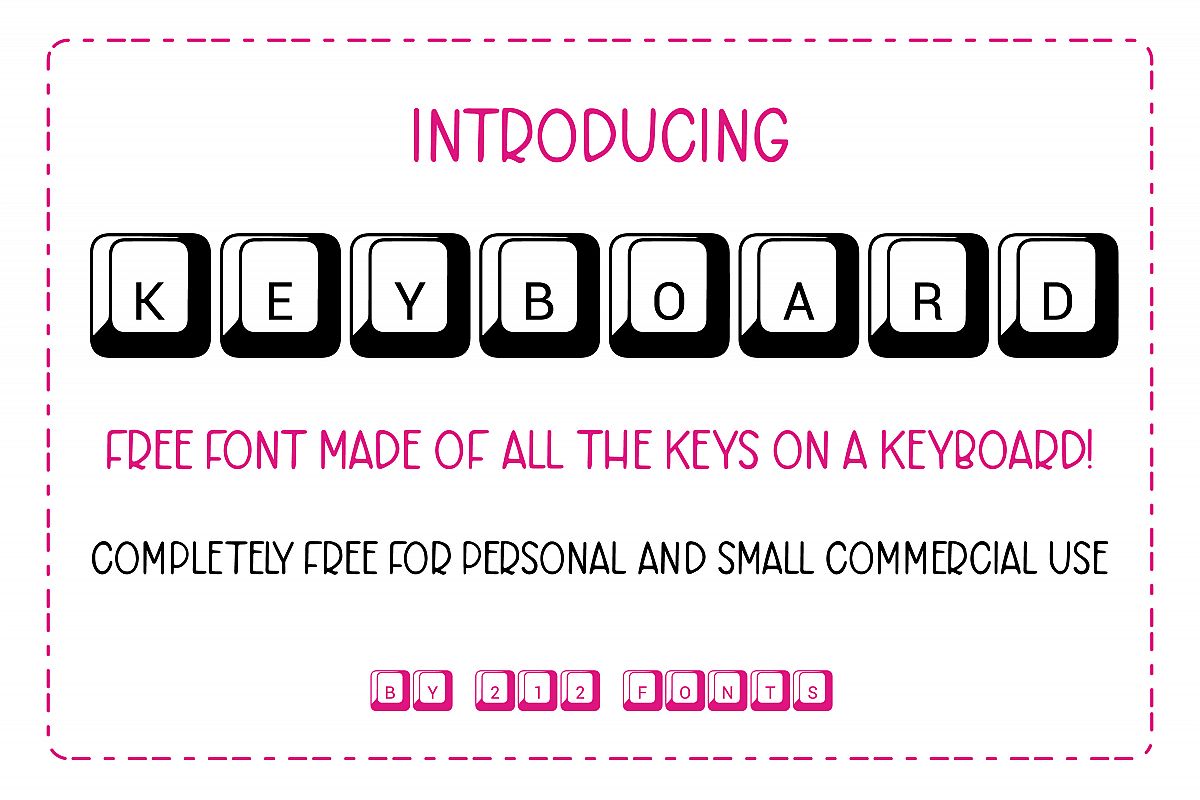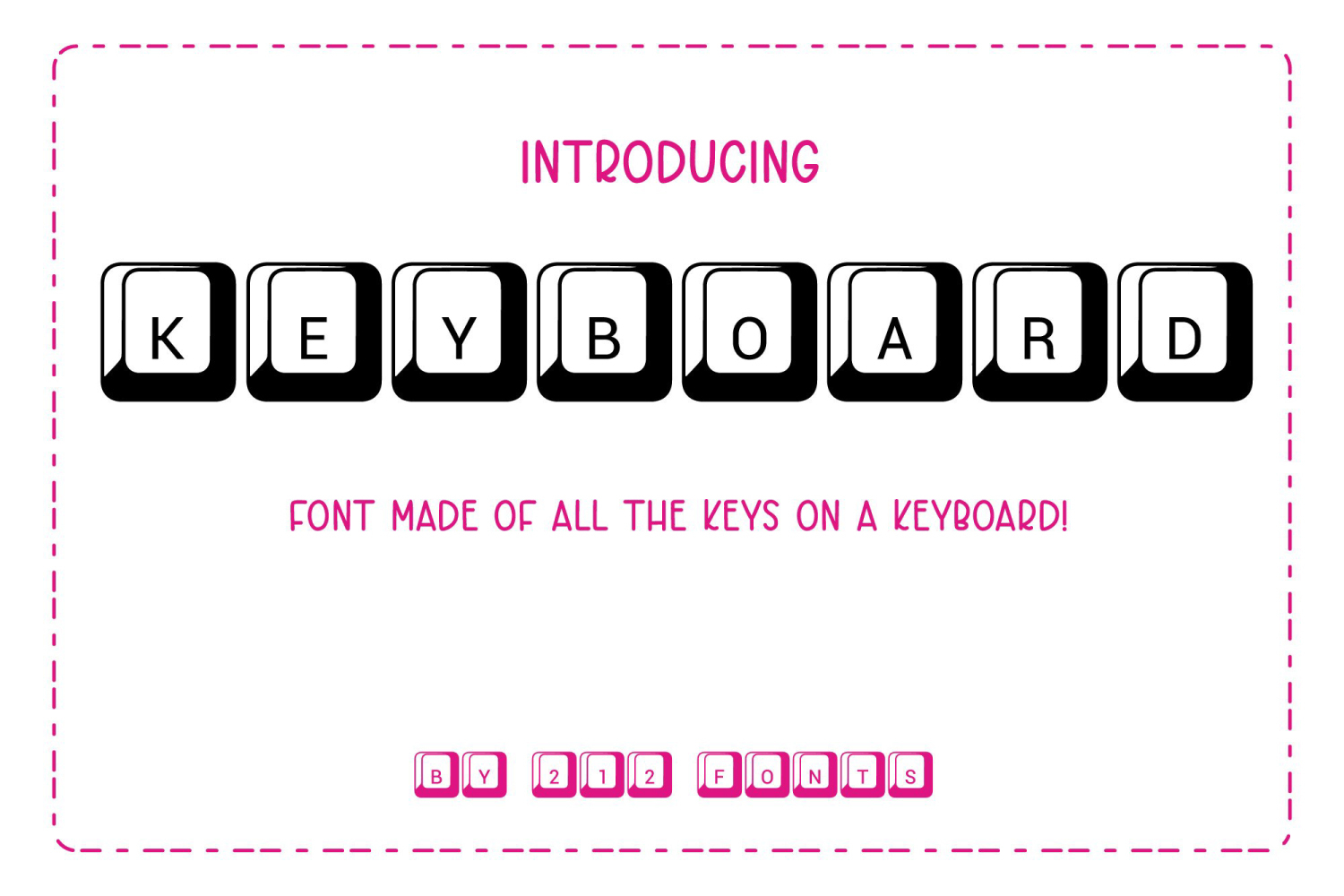
212 Keyboard Computer Keys Font
212 Keyboard is a completely font. I found it useful to have a font with these symbols and thought you might too! Please do not resell.